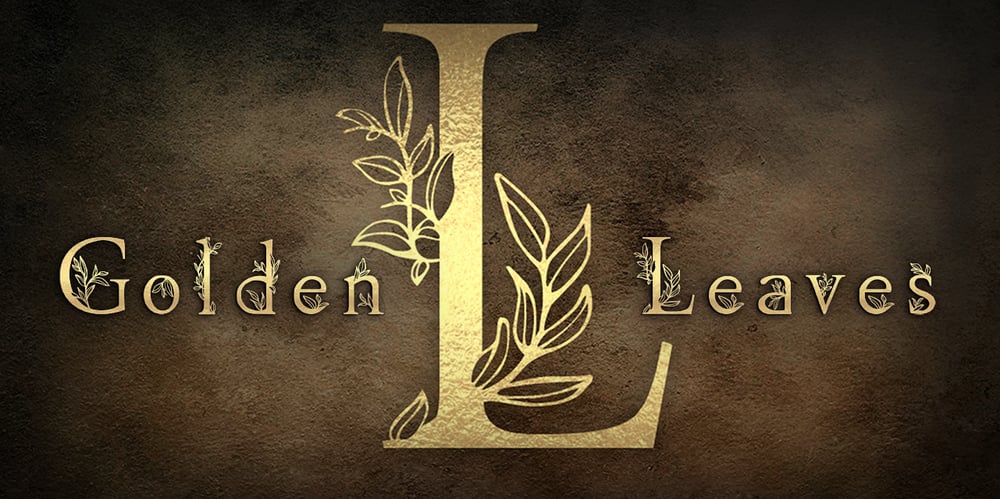
Golden Leaves
Golden Leaves font
Golden Leaves Font Family was designed by Polina Chistyakova and published by Innire. Golden Leaves contains 1 styles and family package options. I am pleased to present “Golden Leaves” – a stylish floral font inspired by nature and last autumn. It is perfect for business and wedding cards, logos, branding, and much more, and well to emphasize your unique style. It is especially good to put emphasis on the text.